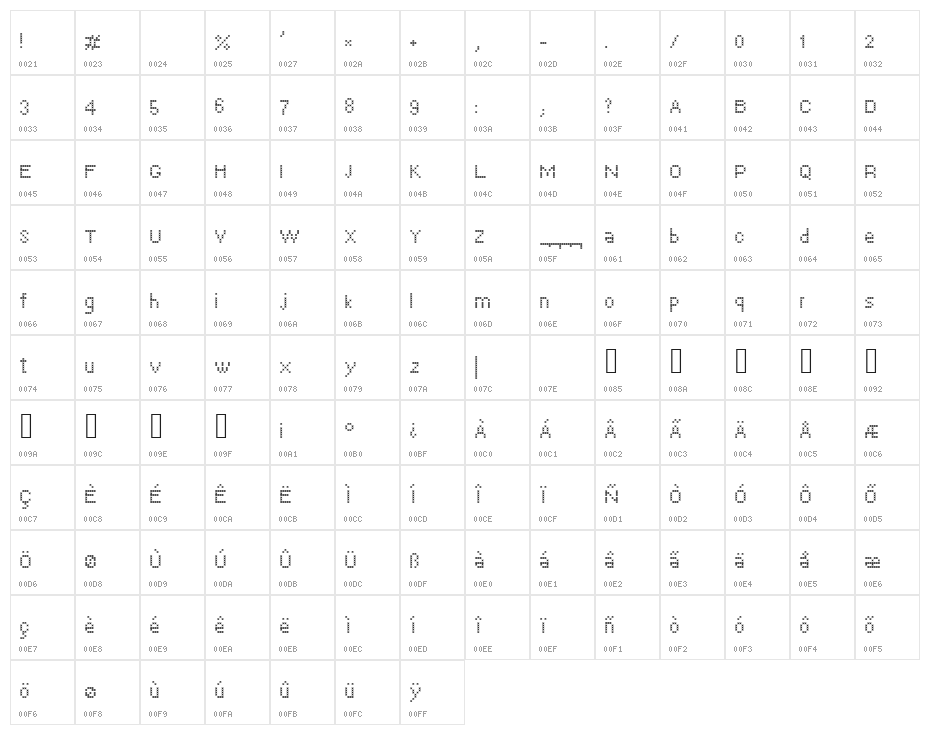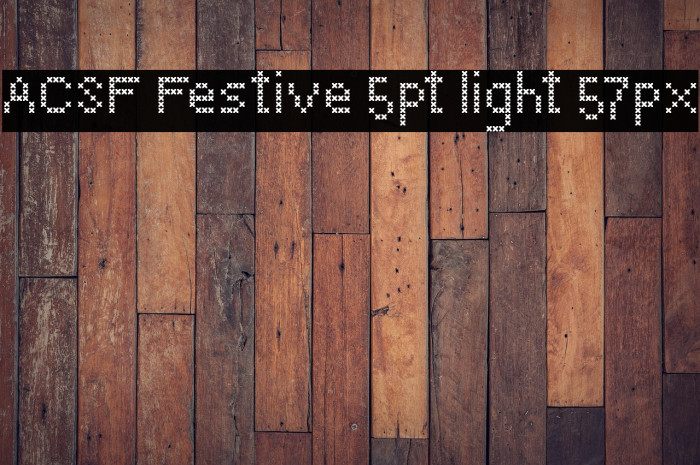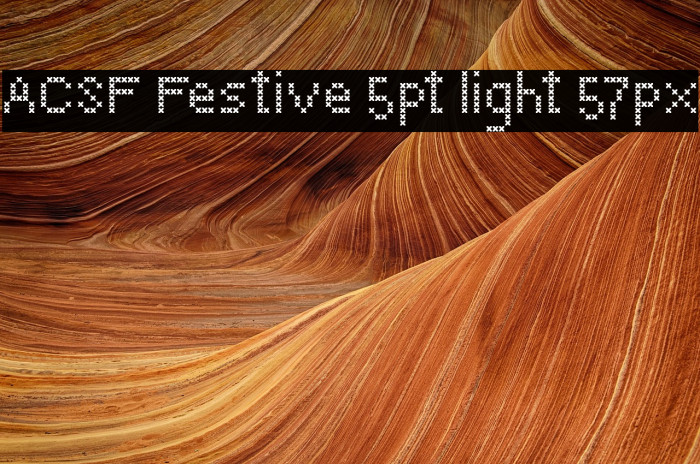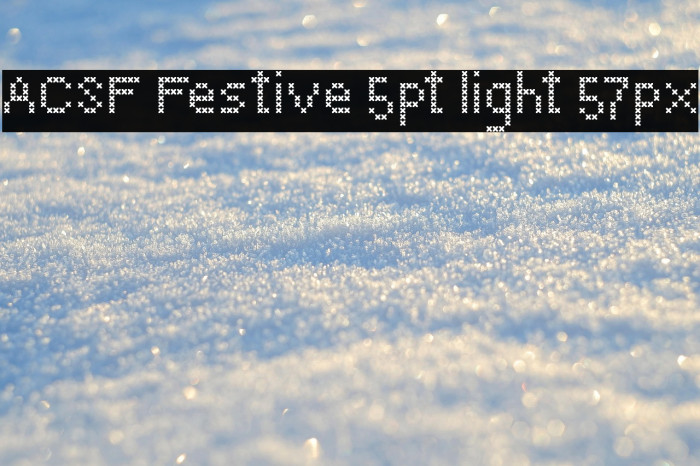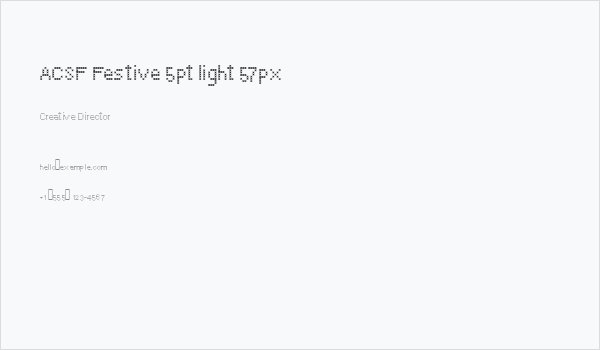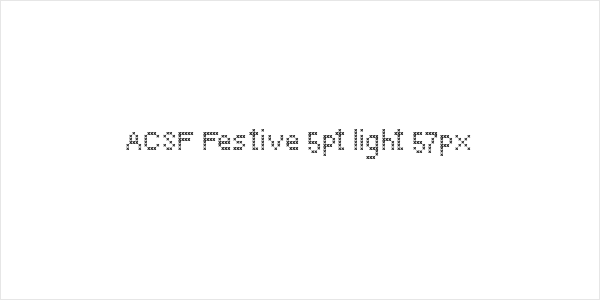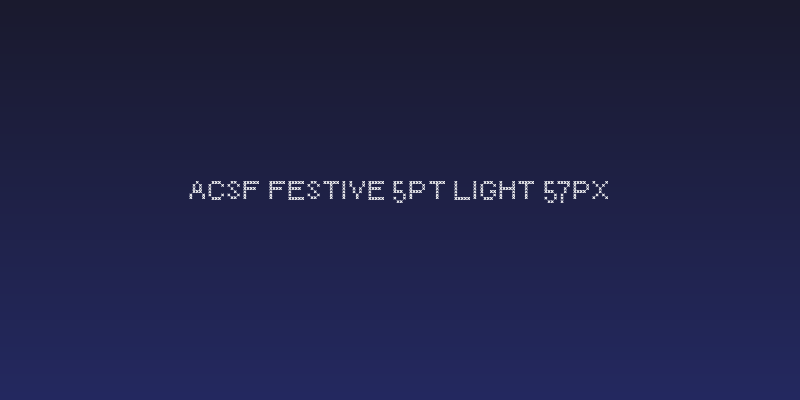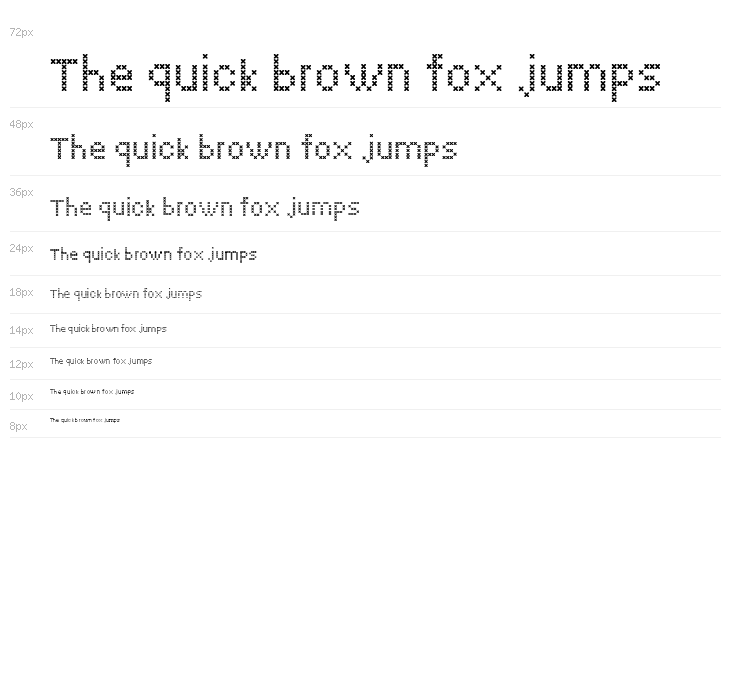
ACSF Festive 5pt light 57px Font
ACSF Festive 5pt light 57px Description
This font features a unique, decorative style that resembles a cross-stitch pattern, giving it a handcrafted and festive appearance. Each character is composed of small 'x' shapes, creating a textured and intricate look. The uppercase and lowercase letters, as well as numbers and special characters, maintain a consistent design, contributing to a cohesive visual theme. The font's playful and artistic nature makes it suitable for creative projects that require a touch of whimsy and charm.
| Proposed Projects | This font is perfect for holiday cards, craft projects, DIY invitations, and any design that aims to convey a handmade or festive feel. |